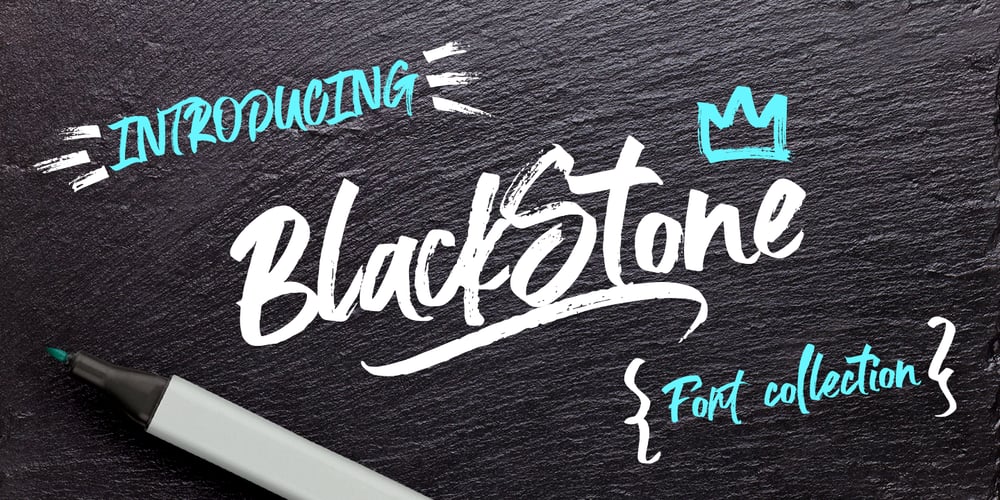
Black Stone Marker Font Family was designed by Anton Didenko and published by Kavoon. Black Stone Marker contains 3 styles and family package options. Black Stone Marker is a A Display Typeface Family which is suitable for you who needs a typeface for headline, logotype, apparel, invitation, branding, packaging, advertising etc.